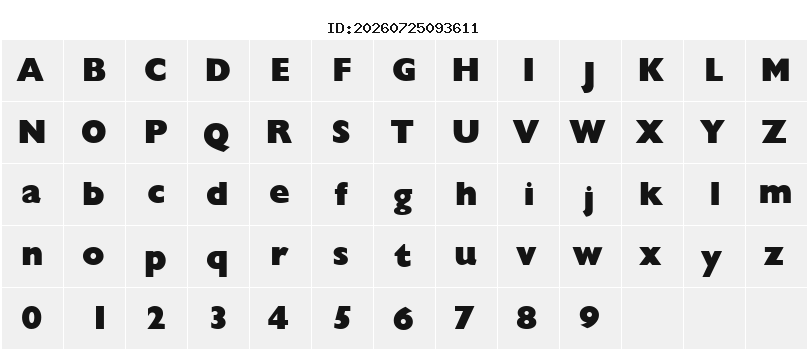
GibsonExtrabold Preview
• Font Name: GibsonExtrabold
• Full Font Name: GibsonExtrabold-Regular
• PostScript Name: GibsonExtrabold-Regular
About GibsonExtrabold.ttf
GibsonExtrabold.ttf is a modern, elegant sans-serif font designed for ultimate readability and visual harmony. Perfect for branding, headlines, web design, and print materials.